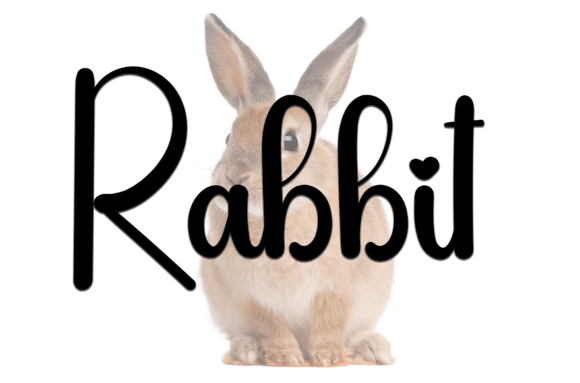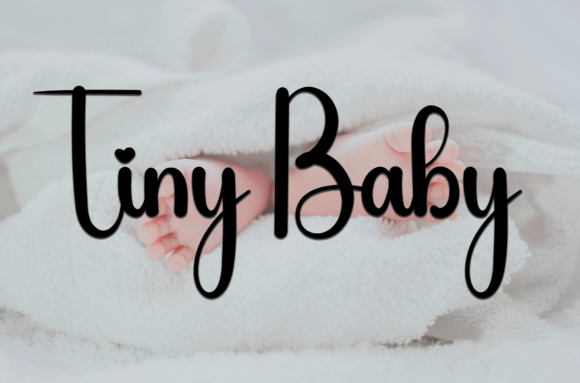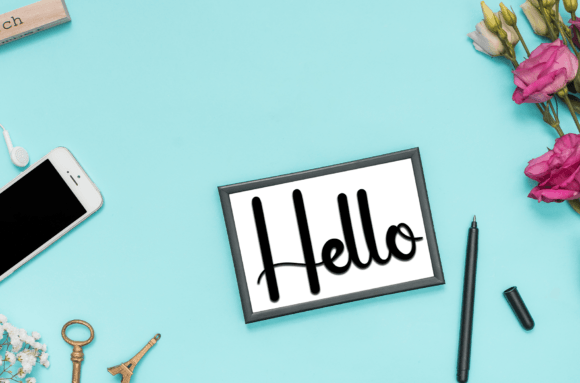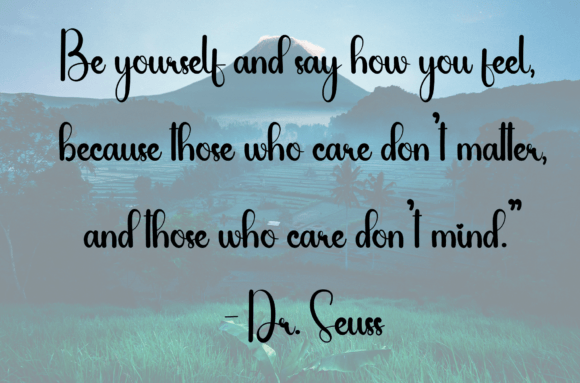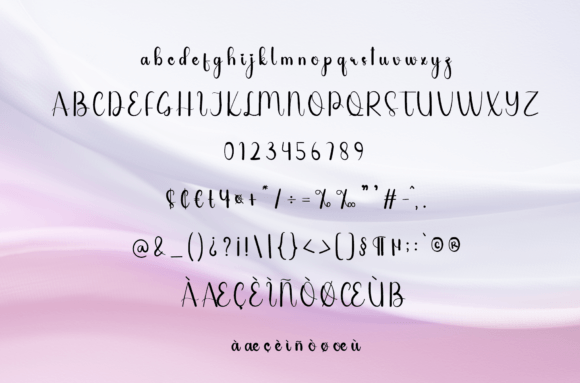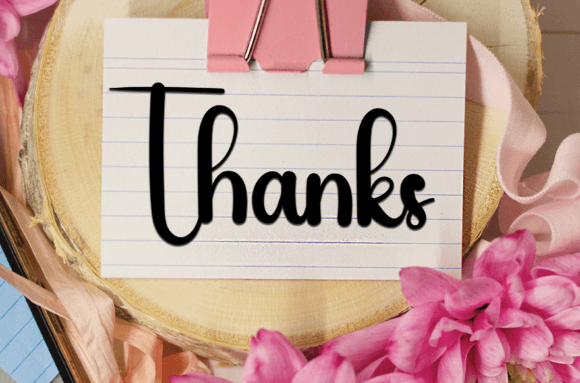
Bulbous Font: The Friendly Handwritten Font to Elevate Your Creative Projects
In the world of typography, a good font can make all the difference in bringing your creative projects to life. If you’re a designer, crafter, or simply someone who loves to dabble in DIY projects, you’re likely always on the lookout for the perfect font to add a personal touch to your work. That’s where Bulbous Font comes in – a friendly handwritten font that’s carefully designed to become a true favorite in your font library.
What is Bulbous Font?
Bulbous Font is a unique and charming handwritten font that’s perfect for a wide range of creative projects. From handmade crafts to digital designs, this font is designed to add a touch of warmth and personality to your work. With its rounded edges and flowing lines, Bulbous Font has a distinctly friendly feel that’s sure to capture the hearts of designers and crafters alike.
Why You’ll Love Bulbous Font
So, what makes Bulbous Font so special? Here are just a few reasons why you’ll love adding this font to your library:
- Handwritten charm: Bulbous Font has a distinctly handwritten feel that’s perfect for adding a personal touch to your projects. Whether you’re creating handmade cards, crafting signs, or designing digital graphics, this font is sure to bring a smile to your face.
- Versatility: Bulbous Font is incredibly versatile, making it perfect for a wide range of creative projects. Use it for titles, headings, or body text – it’s up to you!
- Unique style: Bulbous Font has a unique style that’s sure to set your projects apart from the rest. With its rounded edges and flowing lines, this font is sure to add a touch of whimsy to your work.
How to Use Bulbous Font in Your Projects
Ready to start using Bulbous Font in your projects? Here are a few ideas to get you started:
- Handmade crafts: Use Bulbous Font to add a personal touch to your handmade crafts, such as cards, gift tags, and signs.
- Digital designs: Add Bulbous Font to your digital designs, such as social media graphics, blog posts, and presentations.
- DIY projects: Use Bulbous Font to add a touch of personality to your DIY projects, such as handmade banners, posters, and flyers.
Tips for Getting the Most Out of Bulbous Font
Here are a few tips for getting the most out of Bulbous Font:
- Experiment with sizes: Try using Bulbous Font in different sizes to add visual interest to your projects.
- Pair with other fonts: Experiment with pairing Bulbous Font with other fonts to create a unique and eye-catching look.
- Use it consistently: Use Bulbous Font consistently throughout your project to create a cohesive look.